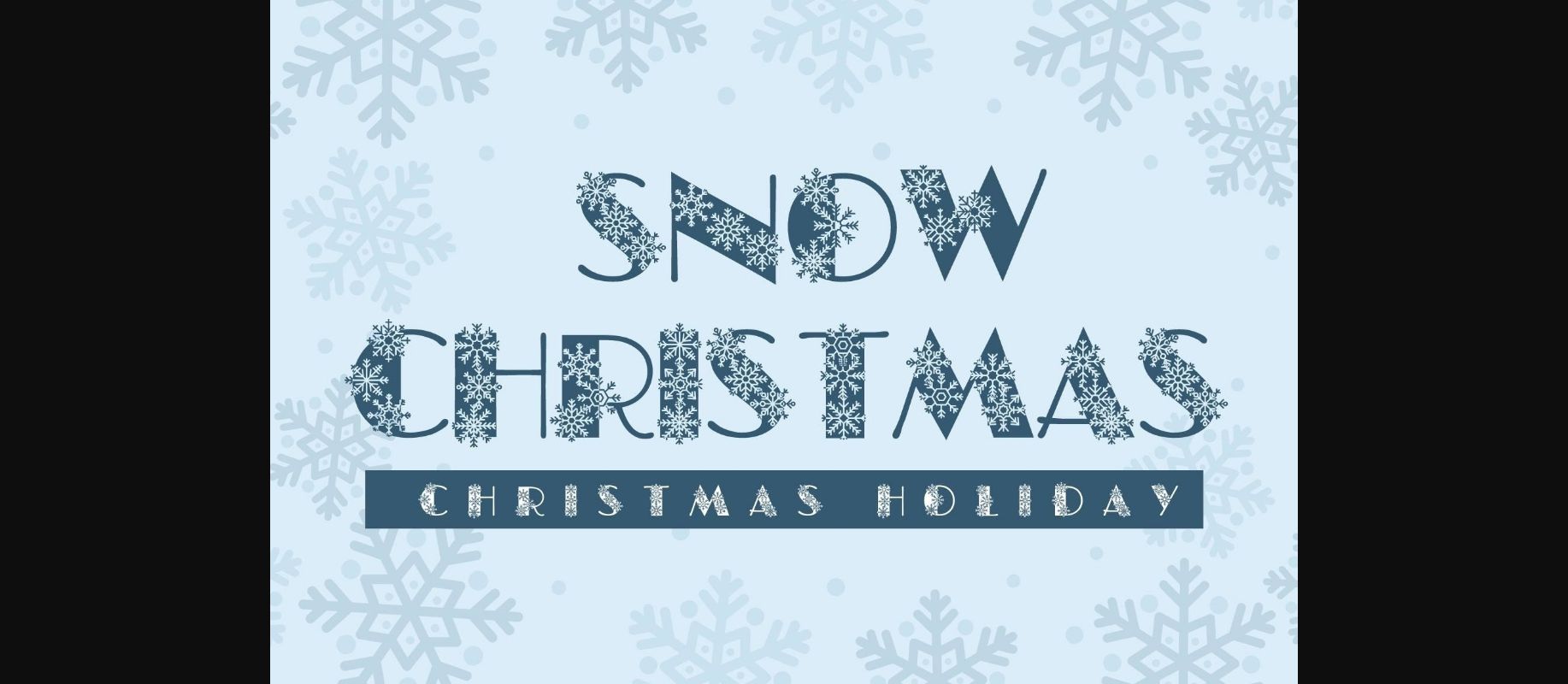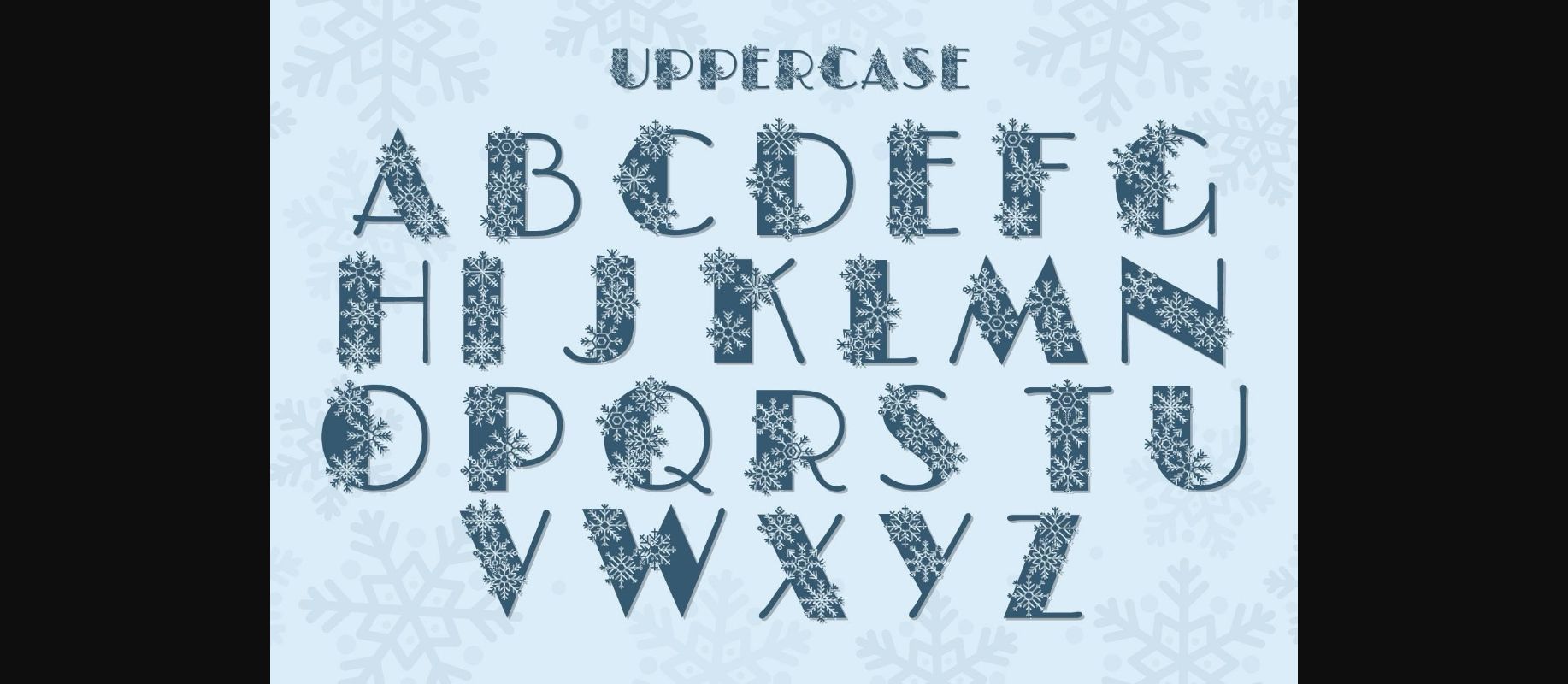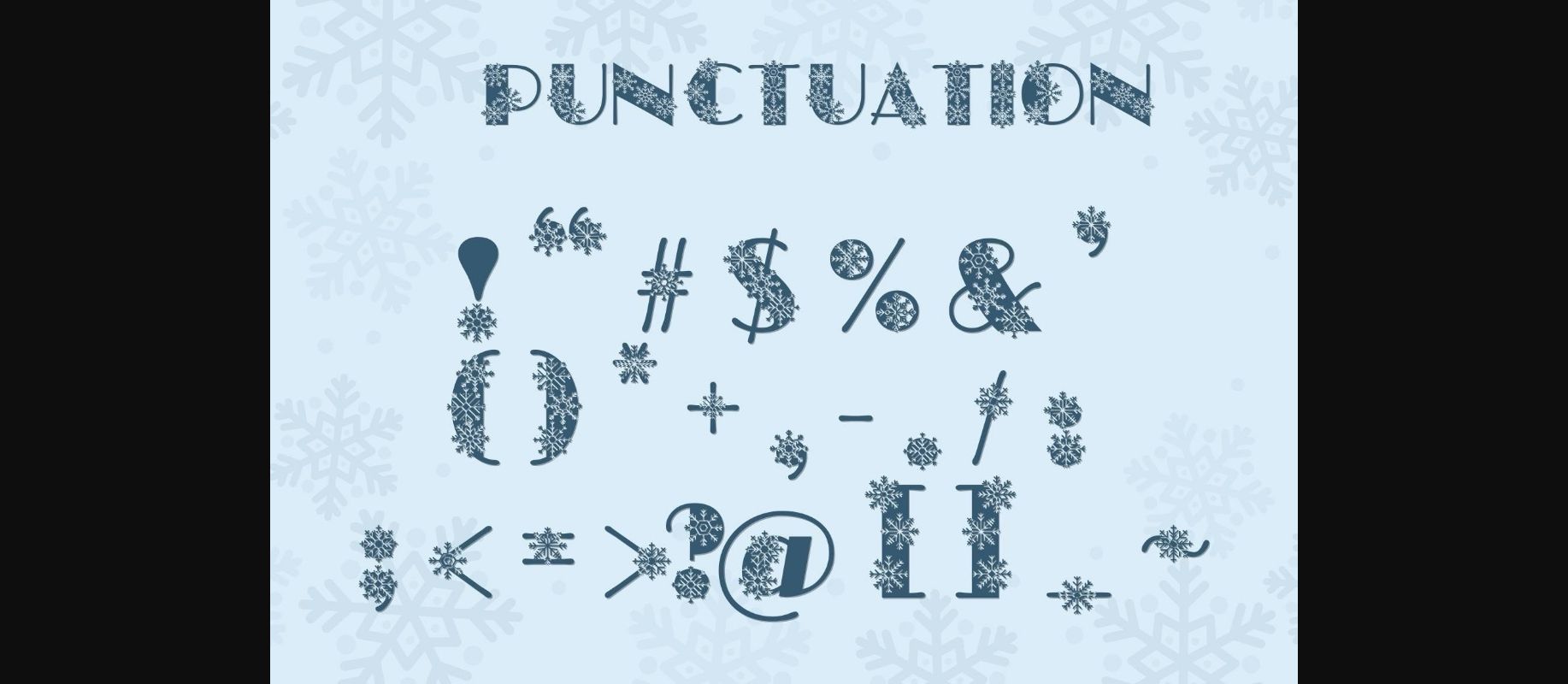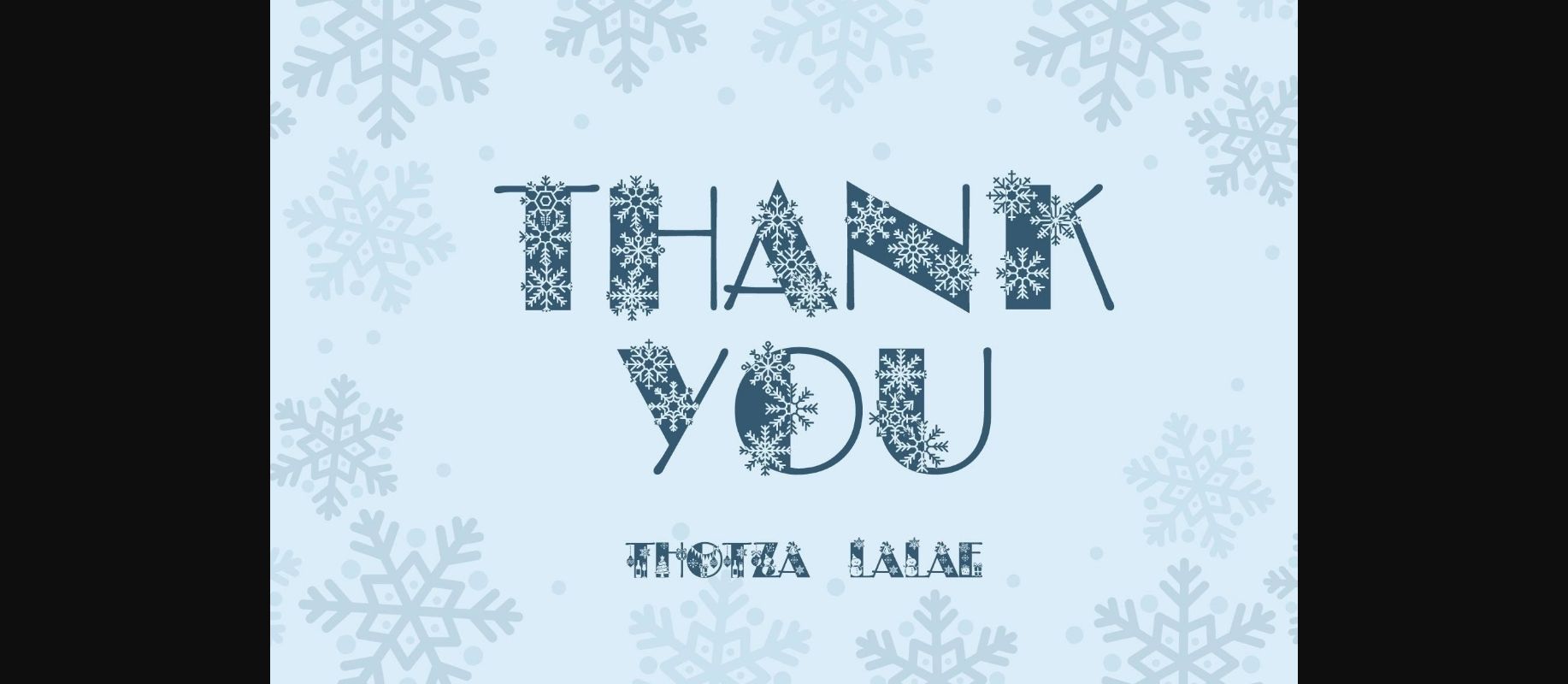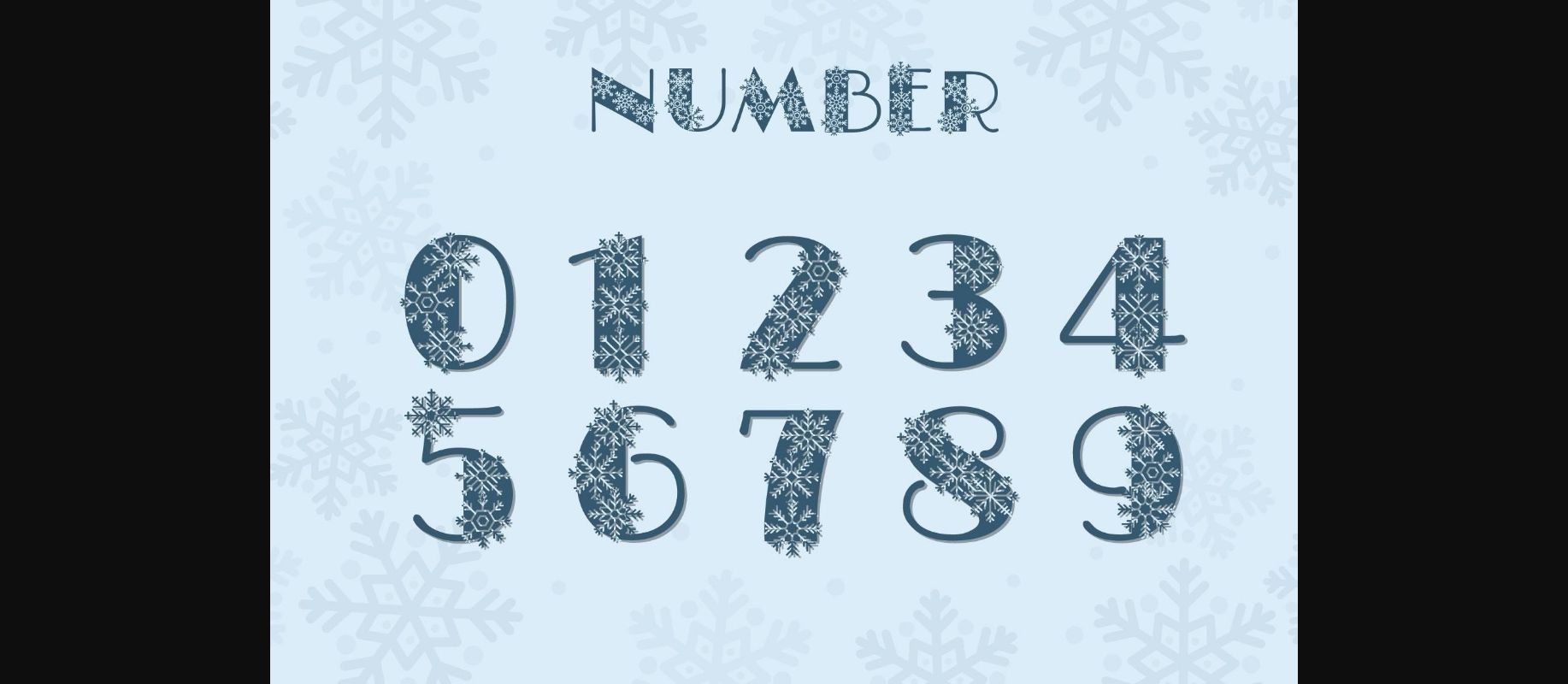
HomeDecorative FontsSnow Christmas Font Decorative Fonts Snow Christmas Font FacebookXPinterestWhatsApp 1 of 7 ... Snow Christmas Font Poster 2... Snow Christmas Font Poster 3... Snow Christmas Font Poster 4... Snow Christmas Font Poster 5... Snow Christmas Font Poster 6... Snow Christmas Font Poster 7... About Snow Christmas Font Snow Christmas is a sweet and festive decorative font. Cheerful and bright, this font is perfect for all your winter holiday projects. DOWNLOAD NOW People also explored Sanding Font Kajumillan Saudagar Font Kalyant Font Juliette Garden Font Future Line Font Wushin Font Hello Boho Font Original Quotes Font Queenly Font 336 0 TagsSnow Christmas Font Previous articleSnow Christmas FontNext articleMalape Dawuana Font LEAVE A REPLY Cancel reply Comment: Please enter your comment! Name:* Please enter your name here Email:* You have entered an incorrect email address! Please enter your email address here Website: Save my name, email, and website in this browser for the next time I comment. Personal Use Free Osaka Personal Use Free Read more about this font The Kingdom Personal Use Free Read more about this font Black Jalal Personal Use Free Read more about this font Hello Holiday Personal Use Free Read more about this font BLOG Free vs Paid Fonts: Why Investing in Premium Fonts Is Worth It Free vs Paid Fonts: Why Premium Fonts Are Worth It in 2025 The debate of free vs paid fonts continues in the design world. While... Using Fonts in Digital Marketing: Tips to Strengthen Your Brand Identity The 10 Best Handwriting Fonts to Add Personality to Your Designs Transform Your Website: Elevate Your Typography with 7 Best Web Font Generators